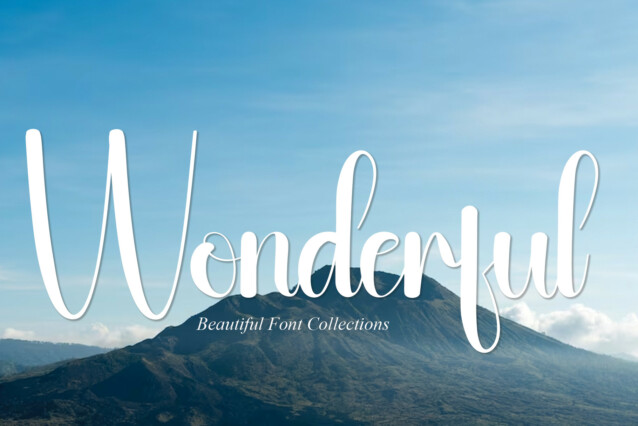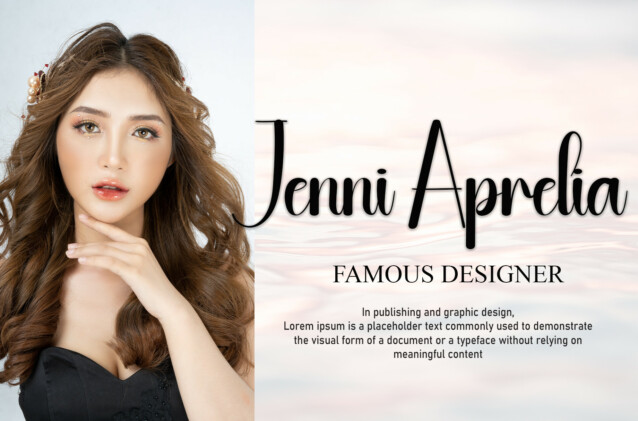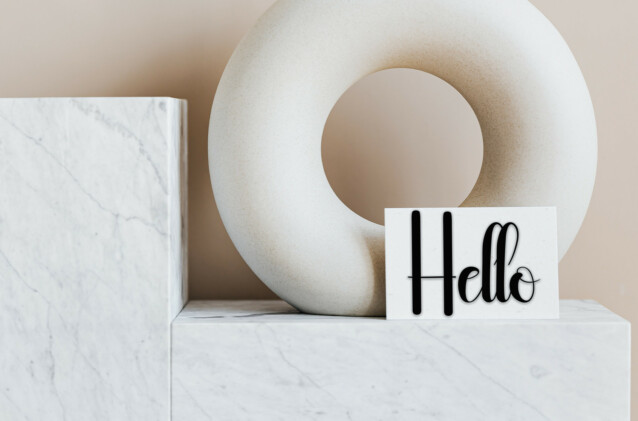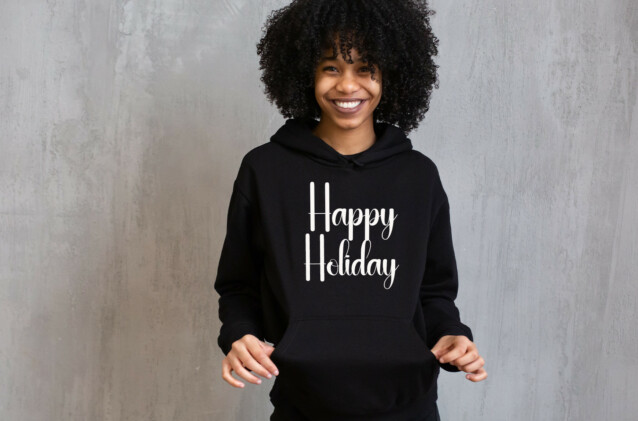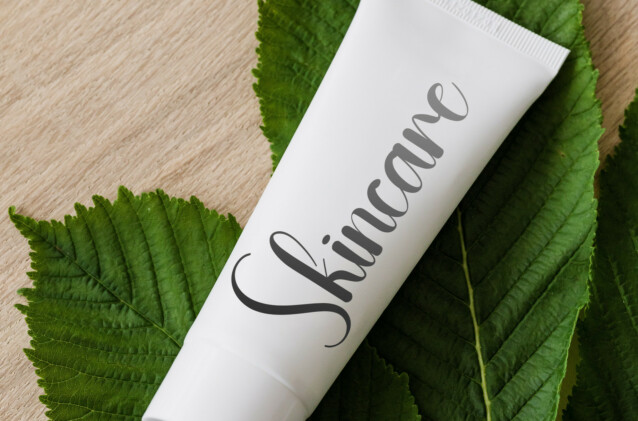
Wonderful Script Font is a sweet and friendly handwritten display font. Cute and fun, this font is ideal for writing wedding invitations, cards, or any other design that might need a playful touch!